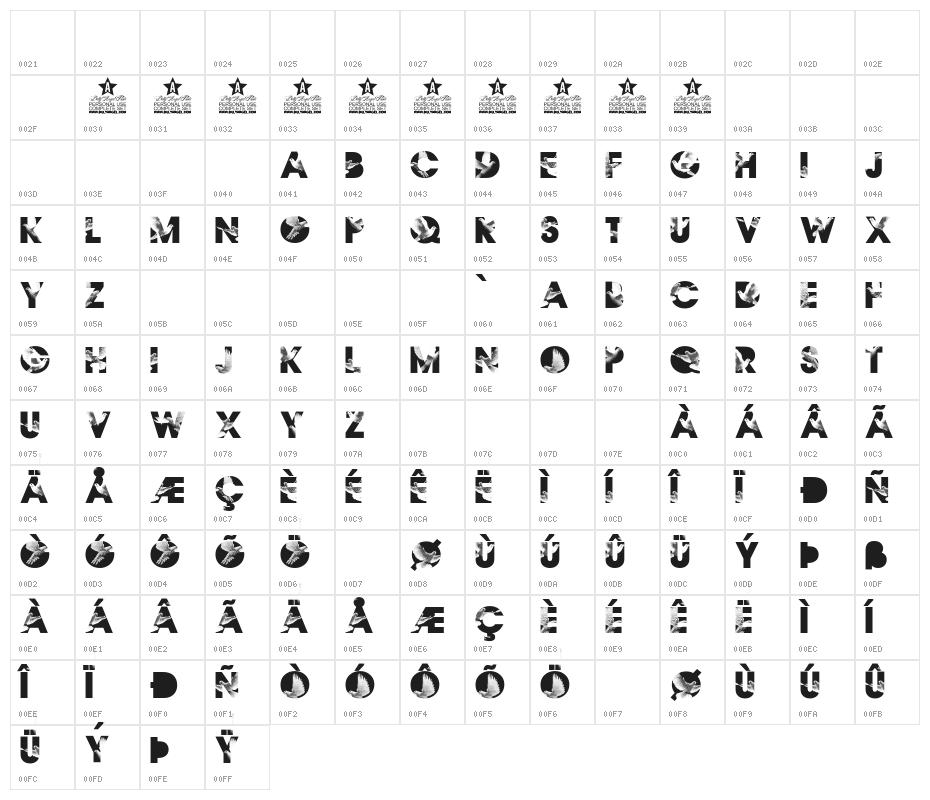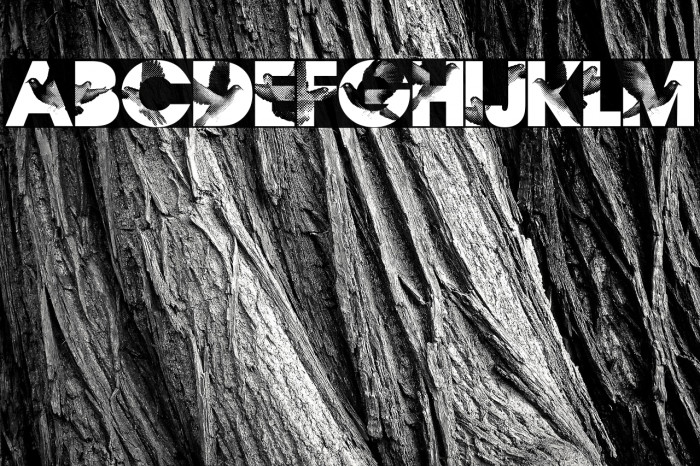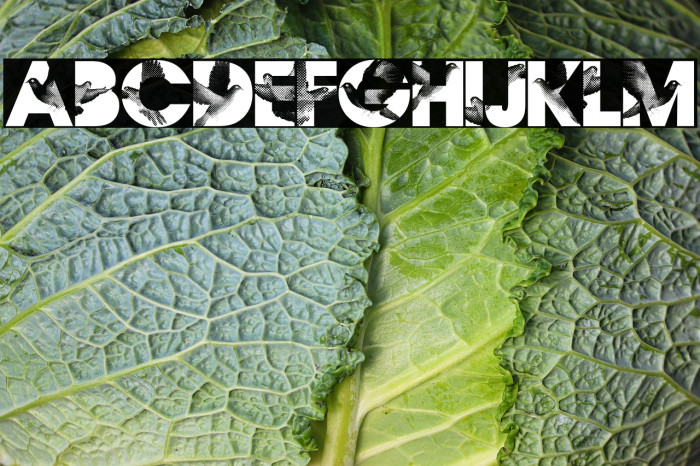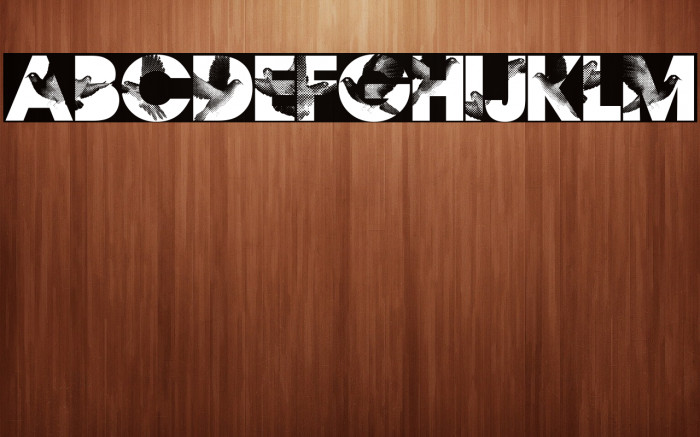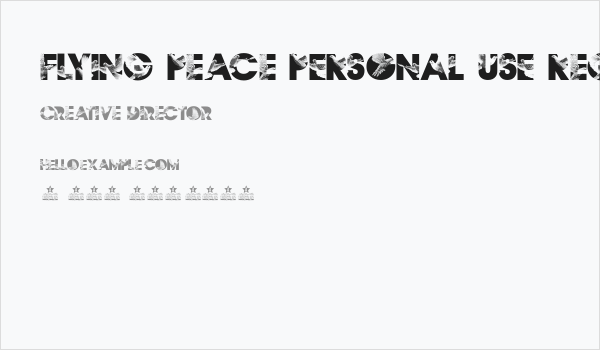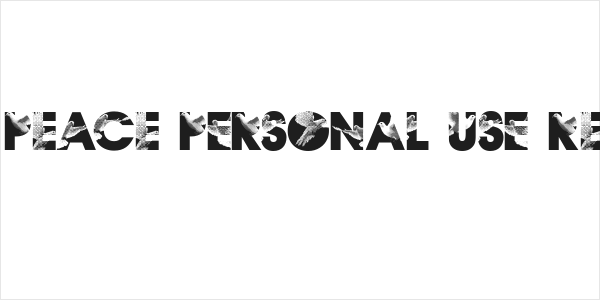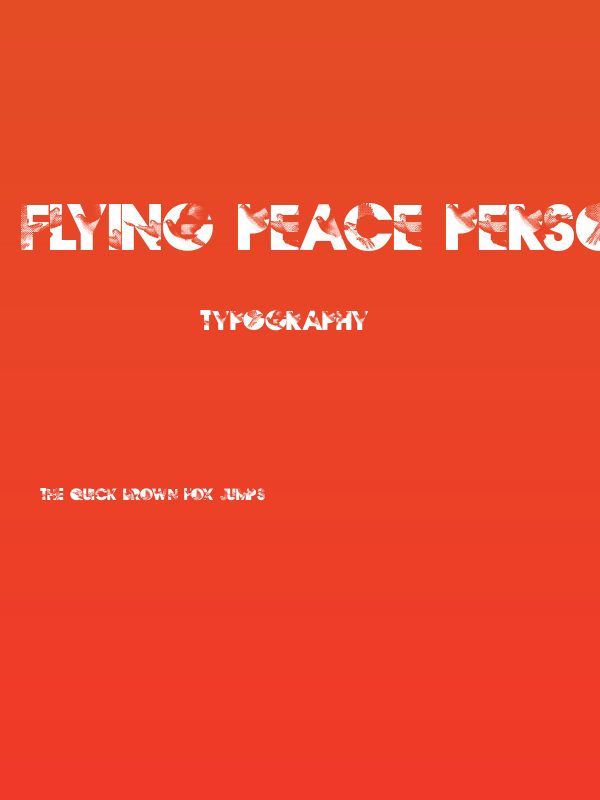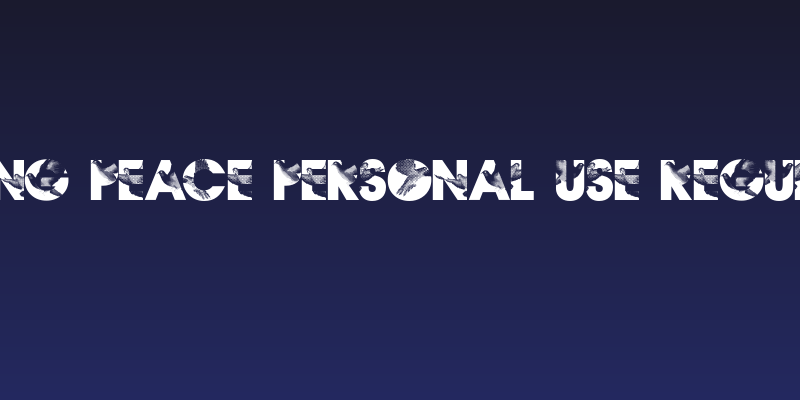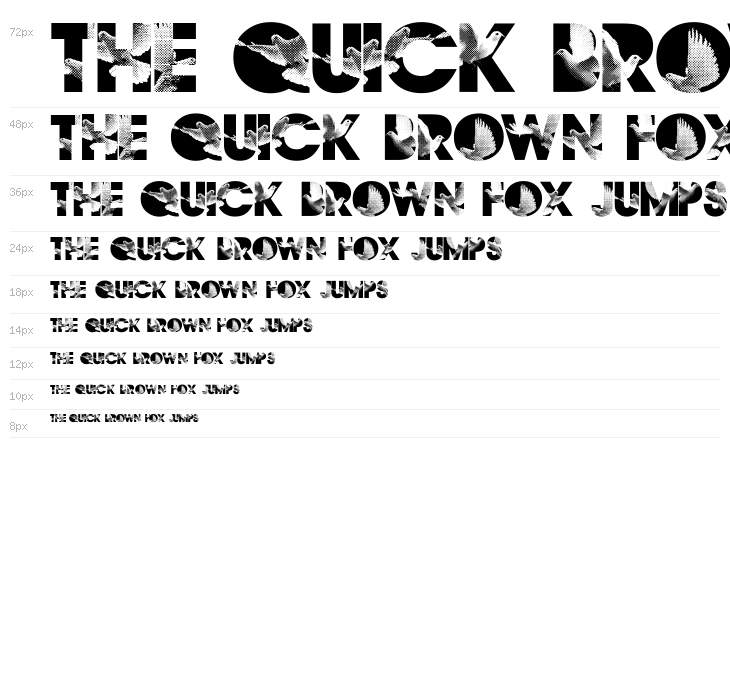
Flying Peace PERSONAL USE Regular Font
Flying Peace PERSONAL USE Regular Description
This font features a bold, decorative style with a unique design element where each letter is filled with an intricate pattern of flying birds. The uppercase letters are strong and impactful, making them ideal for attention-grabbing headlines or artistic projects. The font's design creates a dynamic visual effect, combining the solidity of the letterforms with the fluidity of the bird patterns. The overall appearance is modern and creative, suitable for projects that require a distinctive and artistic touch.
| Overall Style | Modern, Artistic |
| Proposed Projects | Ideal for posters, album covers, branding materials, and any project that requires a unique and artistic font. |